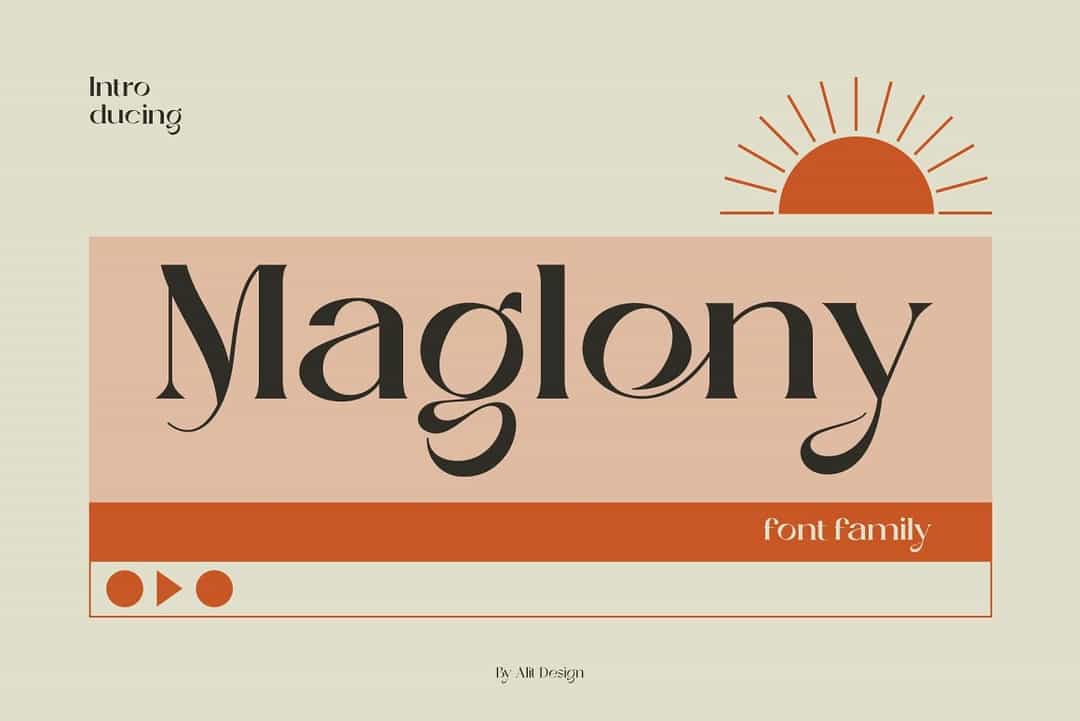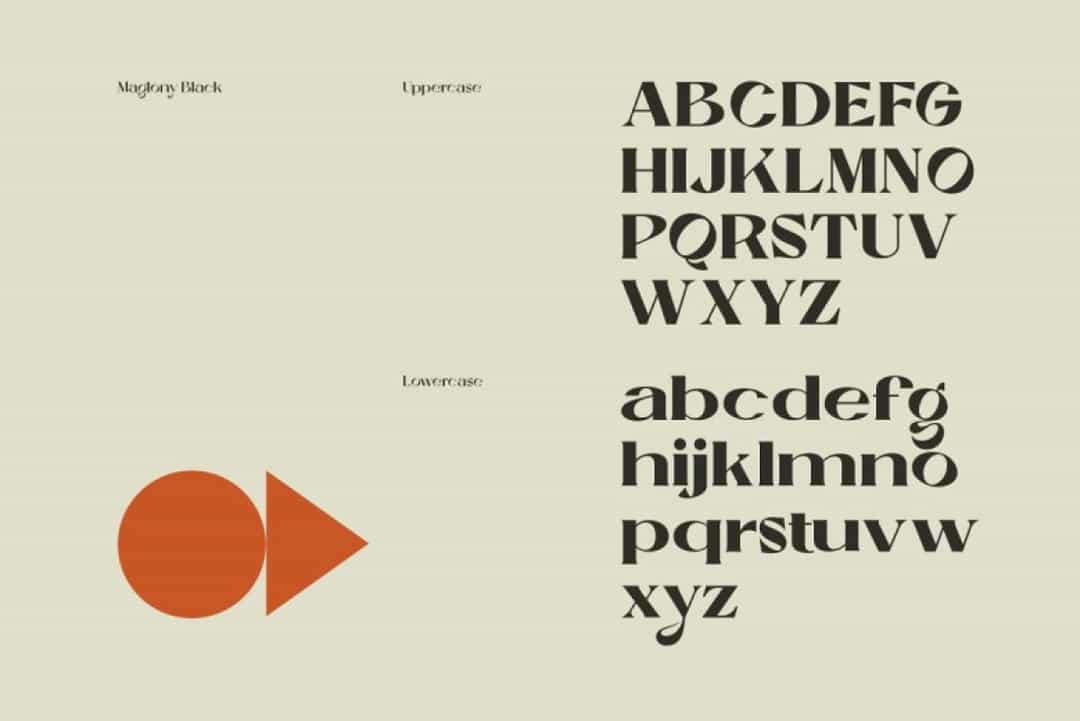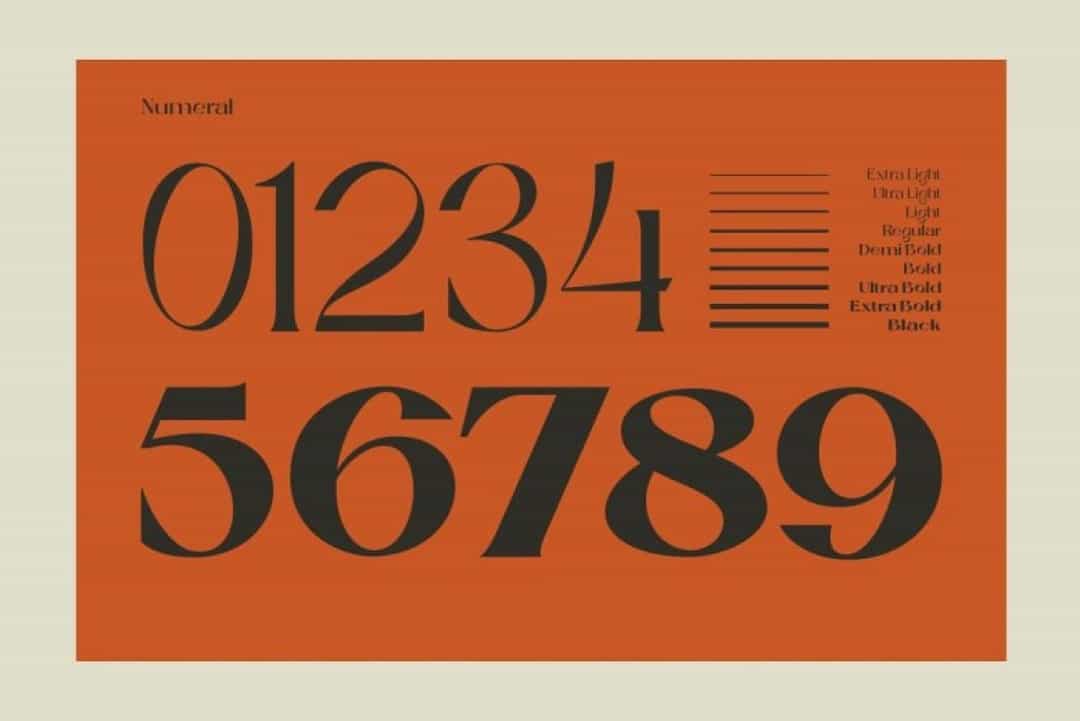
Maglony is a sophisticatedly themed serif font with lively serifs that is both lively and fluid, creating stunning curves. Elegant Serif fonts such as Maglony Serif Elegant typeface can easily be added to any design that features refined and smooth details; their fluid designs can even make this font user-friendly as all glyphs have Unicode support (PUA).